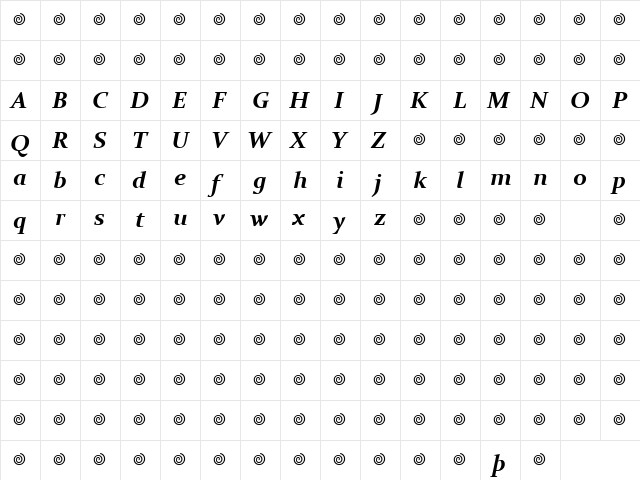
Constantia Bold Italic
| Foundry | Microsoft Corporation |
| Designer | John Hudson |
Design Context for Constantia Typeface
Constantia is a composed and adaptable typeface that performs quietly and consistently across a wide range of design contexts. Its italic angle brings a sense of urgency and motion to the letterforms. Its bold stroke weight gives it real presence on the page.